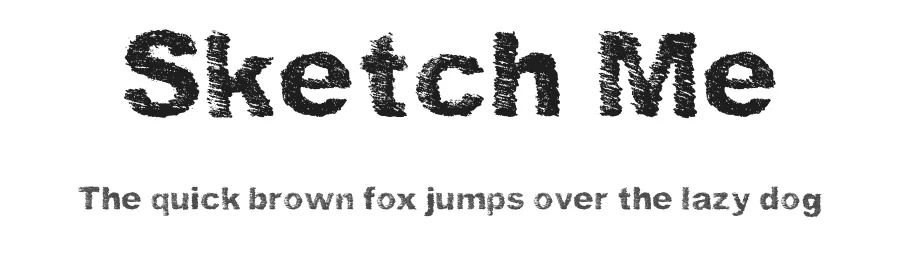
About Shokkking Black Font
Shokkking Black is a decorative font designed by Redbikini Design. It includes 239 glyphs, a black weight, TTF (TrueType) format, and 217 languages. Shokkking Black is free to download; check the license details on this page before commercial use. Decorative fonts like Shokkking Black work best for logos, posters, packaging, and standout headlines.
Shokkking Black Font is a decorative font that shines as a display or heading face. Pair it with a clean sans-serif or serif font for body text β the contrast creates a clear hierarchy while the two styles stay balanced and easy to read.
Shokkking Black Font
Shokkking Black Font is a decorative typeface by Redbikini Design, ideal for logos, invitations, branding, and creative projects.